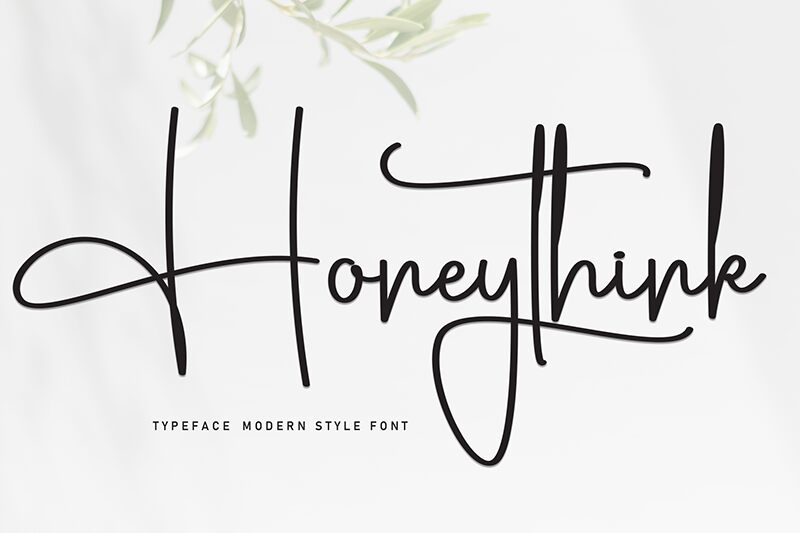
Honeythink
Honeythink font from Scratchones is a free handwritten font with light strokes and flowing beautifully cursive characters. Its organic, casual characters deliver a modern feel and have a gorgeous hand-drawn appearance. It’s perfect for anyone looking to individualize their projects or elevate them through classic yet natural typography.
Use its letters for logo design, posters, books covers, advertisement banners, mobile apps UX/UI designs, branding presentations; or as the main typeface on websites. It’s additionally great in various print products: recipes, notebooks journaling inspirational contents and any other projects that need attention to detail.